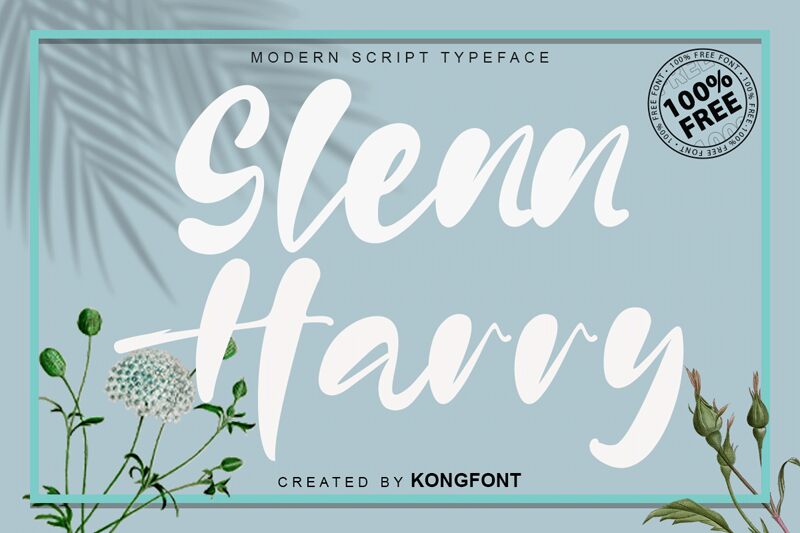
Glenn Harry, the bold and smooth brush font designed by Kong Font, is a perfect addition to any project that requires a touch of elegance and sophistication. With its unique curves and fluid strokes, this font is suitable for a wide range of design projects such as luxury branding, fashion editorials, wedding invitations, or even social media graphics. Its bold weight makes it stand out from the rest while the smooth brush style adds a subtle touch of personality to your design. The Glenn Harry typeface is sure to elevate your project and leave a lasting impression on your audience.